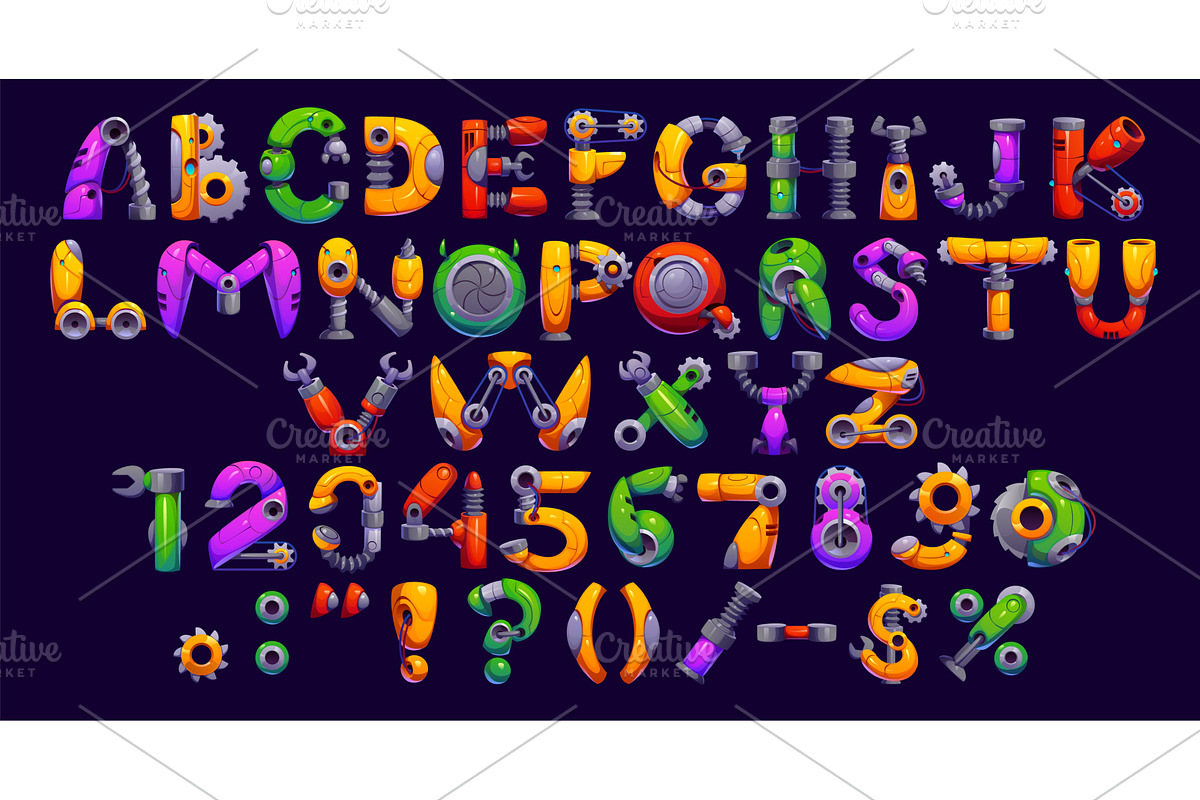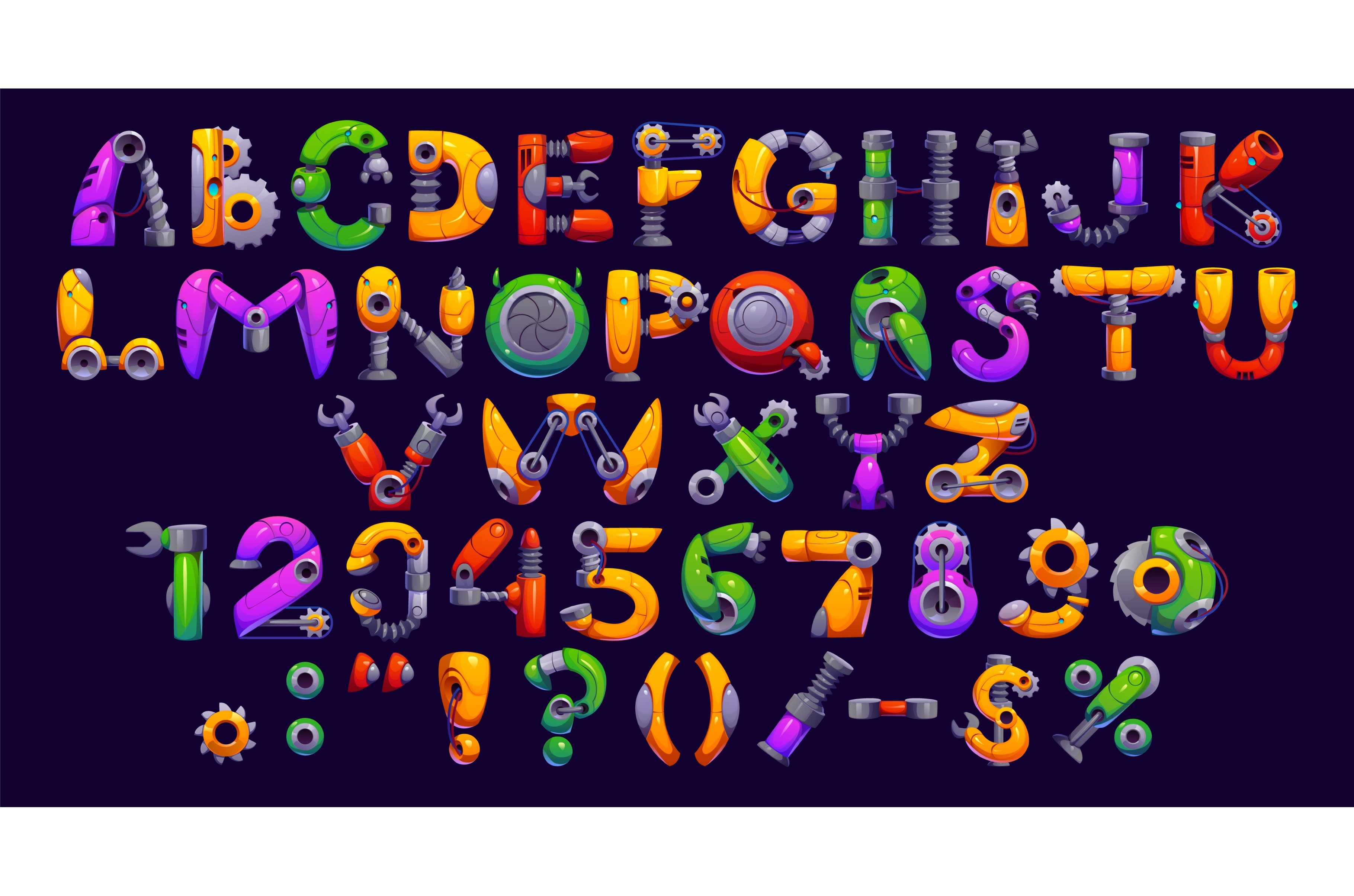
Cartoon robot hand font, gears
Cartoon robot hand font, gear wheel typeface, cyborg machine type, engineering English alphabet. Kids abc vector uppercase letters, digits and punctuation marks characters made of machine parts